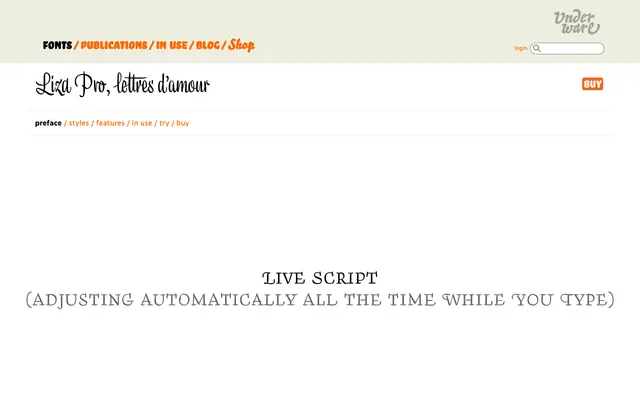
A display script typeface from Underware, whose 'tale of the tail' microsite hints at an especially characterful approach to letterform construction.
Liza is a script typeface from Dutch foundry Underware, a studio with a strong track record in expressive and technically ambitious type. The foundry produced a dedicated microsite called 'tale of the tail' to document the design, suggesting the letterforms carry particular conceptual weight. Beyond that, the page content available offers limited detail on weights, language support or specific stylistic features.
Described as a script typeface by Underware, a foundry known for expressive lettering; the name 'Liza' and the 'tale of the tail' external link suggest a calligraphic or brush-script display design.